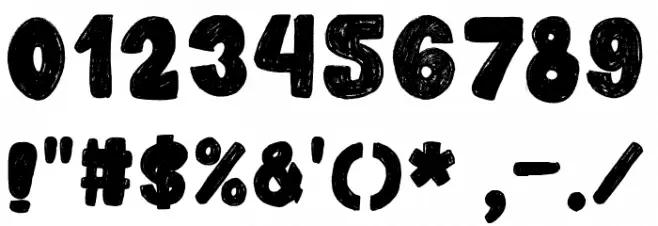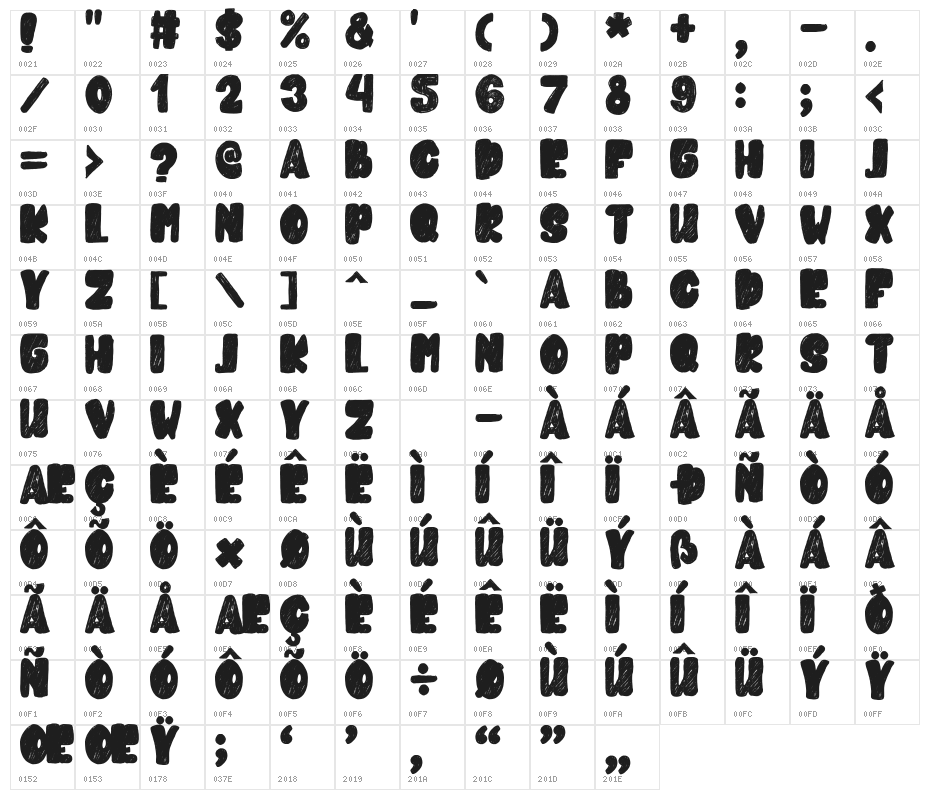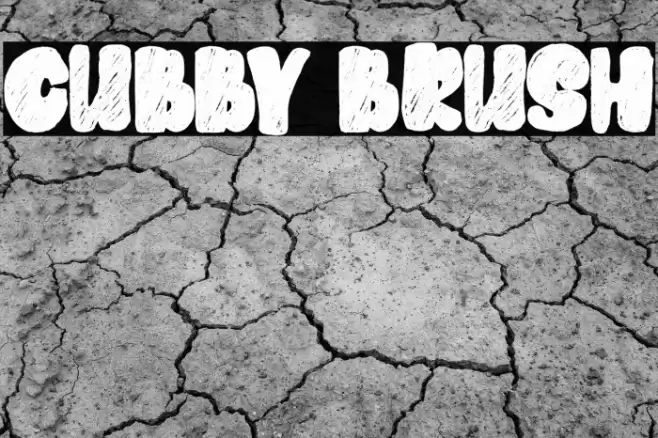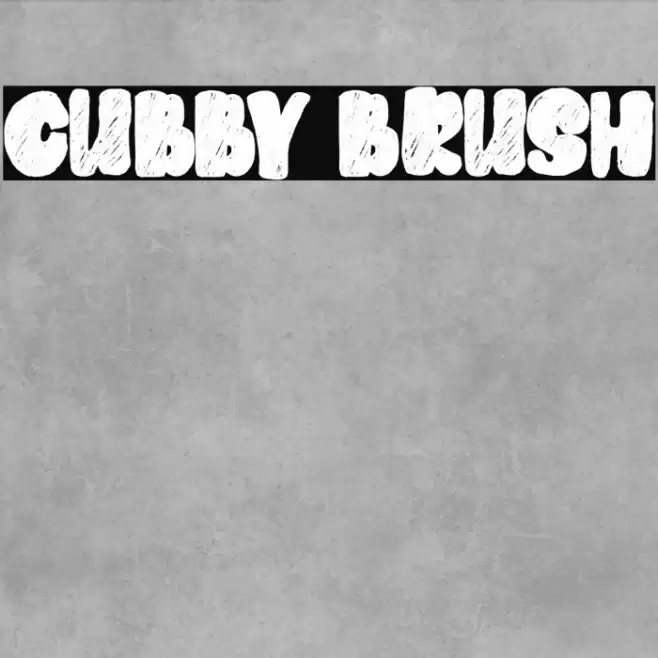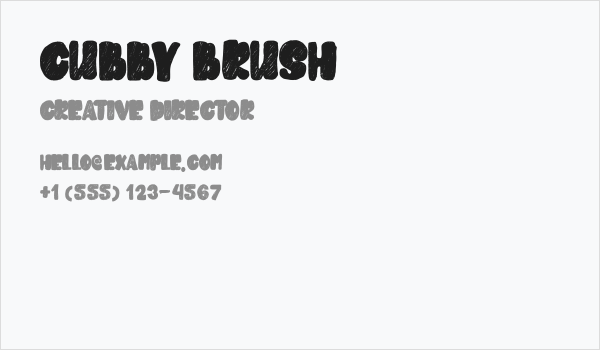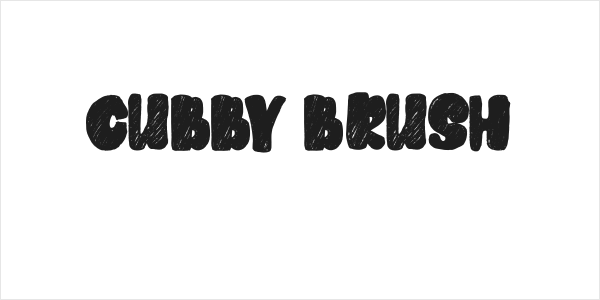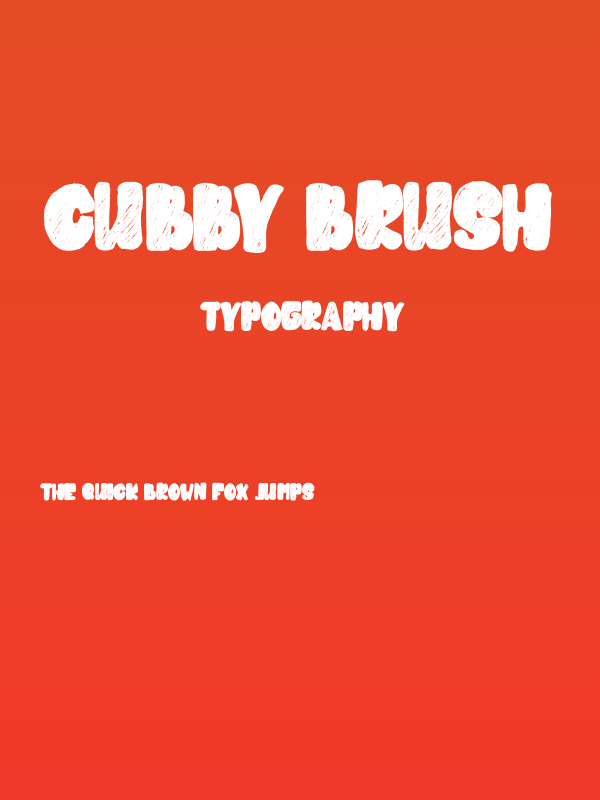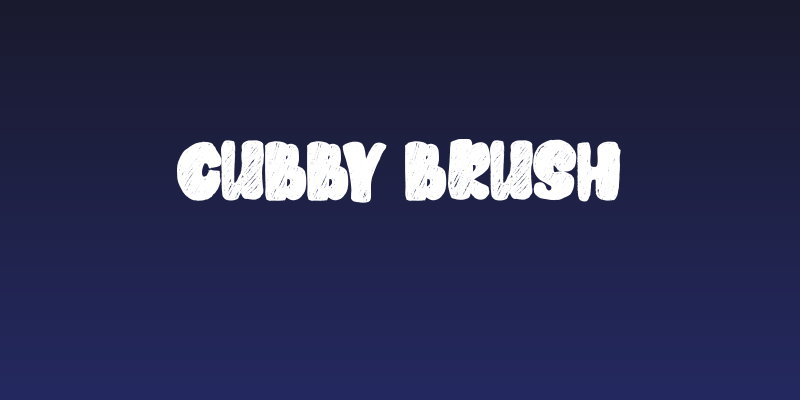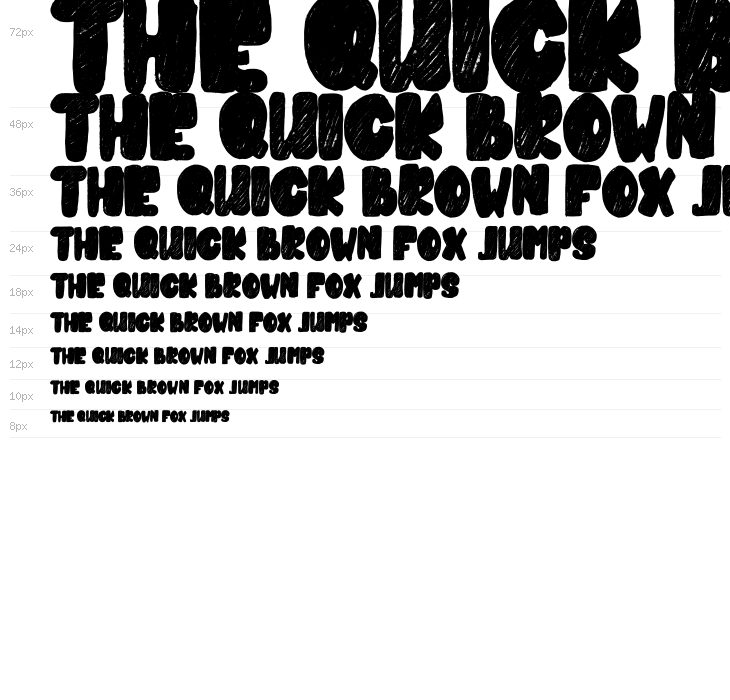
Cubby Brush Font
Cubby Brush Description
This font features a bold, playful style with a hand-drawn brush appearance. The characters are thick and rounded, giving a friendly and approachable feel. The texture within each letter adds a dynamic and artistic touch, reminiscent of a chalk or crayon effect. This font is highly decorative, making it ideal for creative projects that require a fun and informal vibe. The uppercase and lowercase letters maintain consistent weight and style, ensuring readability while adding a unique flair. The numbers and special characters follow the same design principles, providing a cohesive look across all elements.
Overall StylePlayful, Artistic
Proposed ProjectsIdeal for children's book covers, playful branding, posters, and creative social media graphics.